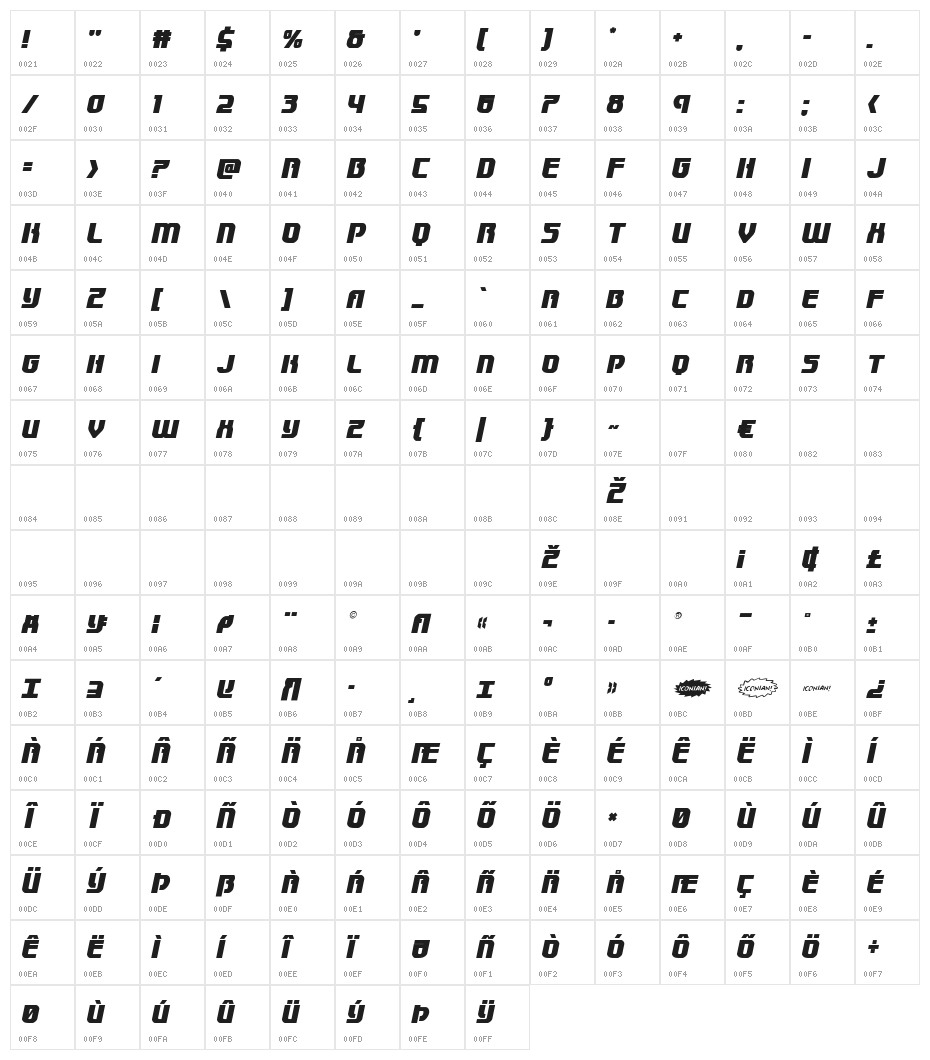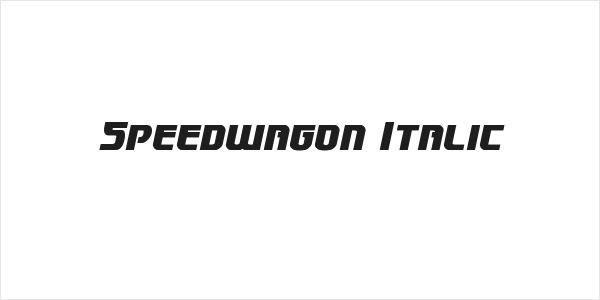
Speedwagon Italic Font
Speedwagon Italic Description
This font features a bold, italicized style with a strong, dynamic presence. The characters are designed with sharp angles and a distinct forward slant, giving a sense of speed and motion. The uppercase and lowercase letters maintain a consistent weight, contributing to a cohesive appearance. The numerals and special characters follow the same stylistic cues, ensuring uniformity across all glyphs. The overall design is modern and impactful, making it suitable for attention-grabbing applications.
| Proposed Projects | Ideal for sports branding, automotive advertisements, dynamic posters, and action-themed designs. |